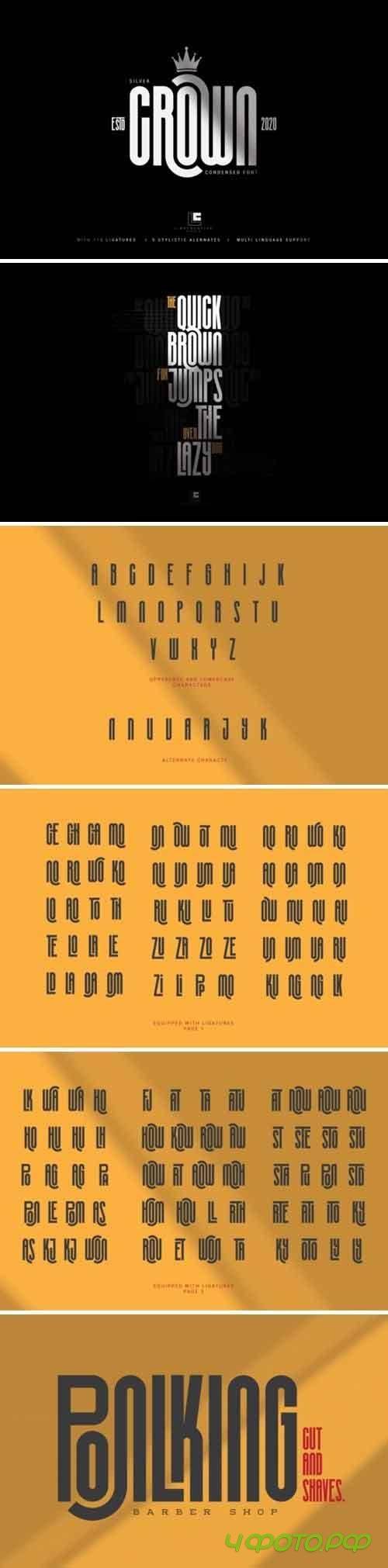
Silvel Crown Font
Silver Crown is an ultra-condensend display font. Get inspired by it’s original look and use it to elevate a wide range of design projects to the highest level, be it branding, headings, wedding designs, invitations, signatures, logos, labels, and much more!